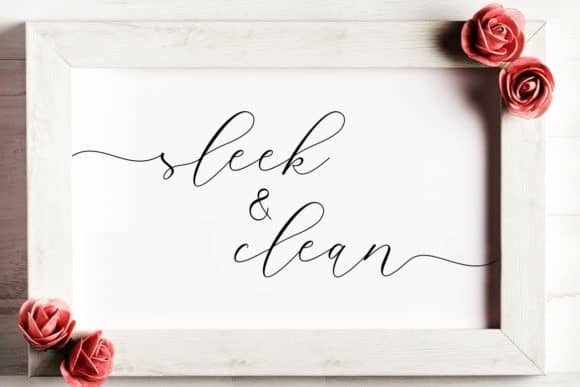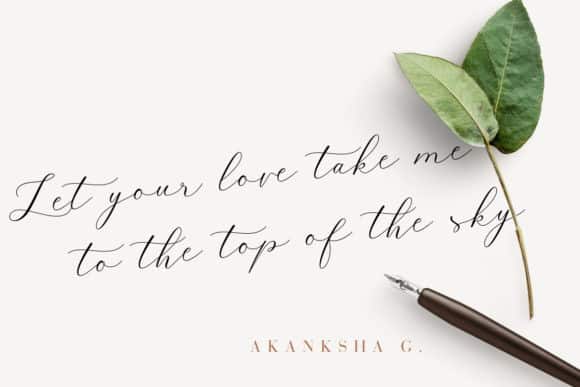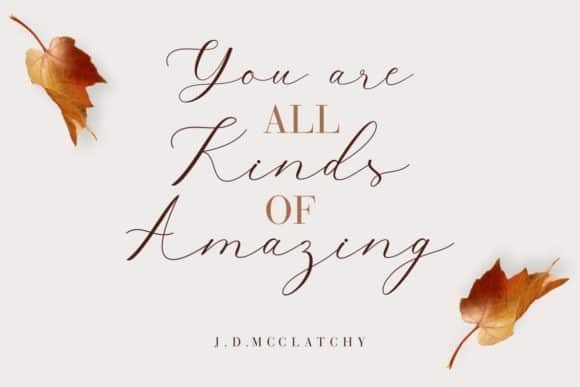
Belights Calligraphy Font is a elegant calligraphy with natural and hand-drawn style. It features amazing swashes and ligatures. Fall in love with its authentic feel and use it to create gorgeous wedding invitations, beautiful stationary art, eye-catching social media posts, and cute greeting cards.
Belights Calligraphy Font is PUA encoded which means you can access all of the cute glyphs and swashes with ease! It also features a wealth of special features including alternate glyphs and ligatures.